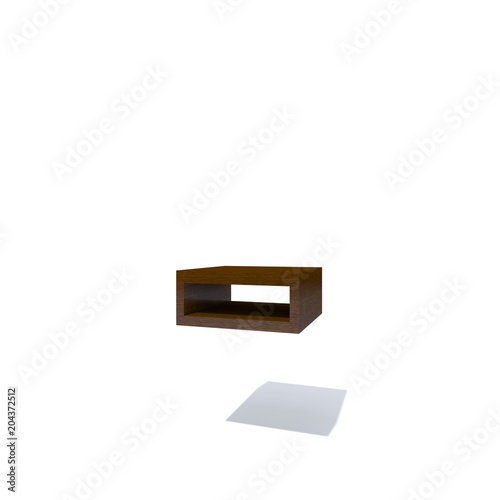
Conceptual wood or wooden brown font or type, timber or lumber industry piece isolated on white background. Educative hadwood material, smooth surface mahogany handmade sculpted 3D illustration object